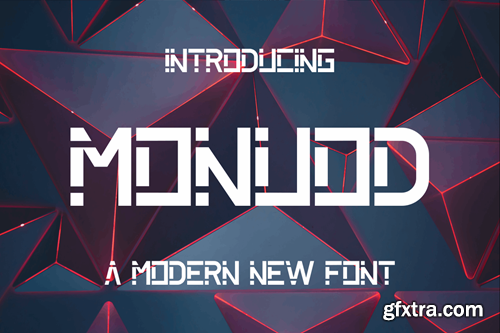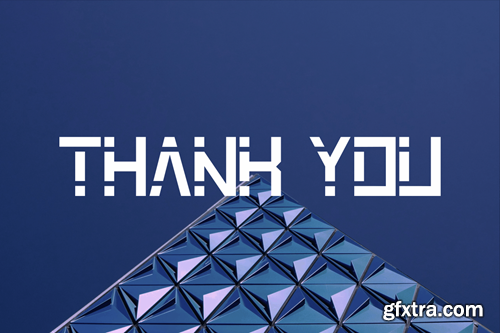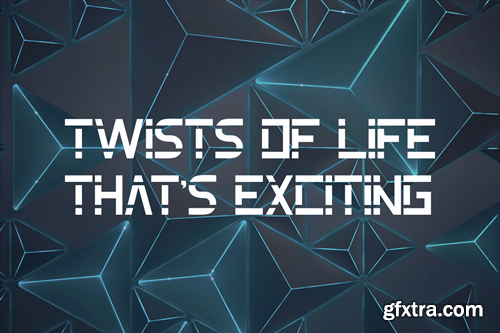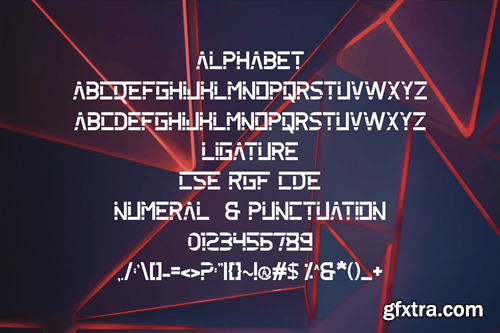
Monuod Font
Introducing Monuod Modern Sans Serif Font. Monuod is a modern and simple font, best used as a display for headings, logos, branding, magazines, product packaging and invitations. Monuod come with clean lines and smooth curves give any project an extra touch of class. What you get: Thank you.